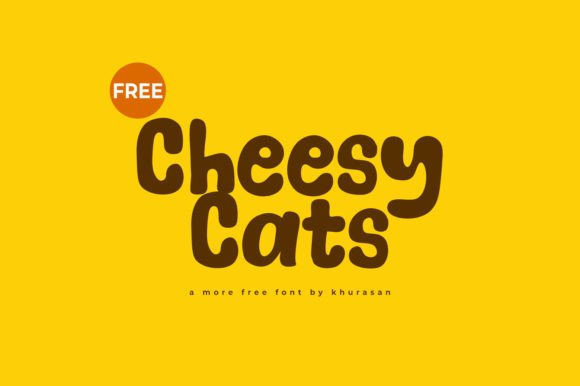
Cheese Cats: A Modern Display Font for Bold Designs
In the crowded landscape of digital and print media, typography often acts as the silent ambassador of a brand or message. It is the first thing an audience notices before they read a single word. For designers seeking a typeface that balances whimsy with professionalism, Cheese Cats emerges as a standout option. This modern display font is not merely a collection of characters; it is a design tool engineered to inject personality into posters, logos, magazines, and book covers. Whether you are a seasoned graphic designer or a business owner looking to refresh your visual identity, understanding how to leverage Cheese Cats can significantly elevate your creative output.
The Character and Appeal of Cheese Cats
Cheese Cats is defined by its playful yet polished aesthetic. Unlike traditional serif fonts that convey history or stark sans-serifs that scream minimalism, this display font occupies a unique middle ground. Its rounded edges and friendly curves evoke a sense of approachability, making it instantly likable. The "cute" factor mentioned in its description is intentional; it taps into a psychological response where softer shapes are perceived as more trustworthy and engaging.
However, do not mistake its charm for a lack of versatility. The font is constructed with strong structural integrity, ensuring legibility even at larger sizes typical of banners and headlines. Its modern styling avoids the dated look of older cartoonish fonts, allowing it to fit seamlessly into contemporary design trends. When you select Cheese Cats, you are choosing a typeface that communicates warmth without sacrificing clarity. It is a font that invites the viewer in, promising content that is both enjoyable and accessible.
Key Design Strengths
- High Impact Visibility: Designed specifically for display purposes, Cheese Cats commands attention on large formats like billboards and event posters.
- Emotional Resonance: The soft geometry triggers positive emotional responses, ideal for brands targeting families, children, or lifestyle markets.
- Modern Flexibility: While cute, the font maintains enough geometric precision to pair well with serious body text, creating a balanced hierarchy.
- Broad Compatibility: It adapts easily to various mediums, from high-resolution print to responsive web headers.
Practical Applications Across Industries
The true value of a font lies in its application. Cheese Cats is remarkably adaptable, serving diverse needs across personal, professional, and commercial sectors. Its ability to match an incredibly large set of projects makes it a staple asset for any creative toolkit.
Branding and Logo Design
For entrepreneurs and small business owners, a logo is the cornerstone of identity. Cheese Cats excels here by offering a distinctive look that helps businesses stand out in saturated markets. Imagine a boutique bakery, a pet grooming salon, or a children's educational center. In these contexts, a sharp, corporate font might feel too cold. Conversely, Cheese Cats conveys care, fun, and quality. By integrating this font into a logo, brands can instantly signal their niche and tone to potential customers.
Publishing and Editorial Layouts
Magazines and book covers require typography that stops the scroll or catches the eye on a shelf. Cheese Cats is perfect for headlines that need to pop. Editors and publishers can use it to highlight feature stories, chapter titles, or special sections within a layout. The font's distinct character ensures that the title remains memorable, encouraging readers to engage with the content beneath it. For self-published authors, particularly those in genres like young adult fiction or illustrated guides, this font can be the deciding factor in a cover's appeal.
Digital Marketing and Social Media
In the fast-paced world of social media, visual assets must communicate quickly. Marketers and bloggers often struggle to create graphics that feel authentic rather than templated. Using Cheese Cats in Instagram stories, YouTube thumbnails, or email headers adds a layer of human touch that generic templates lack. It breaks the monotony of standard system fonts and creates a cohesive visual language that followers begin to recognize and associate with your brand voice.
Enhancing User Experience and Engagement
Beyond aesthetics, the choice of typography impacts user experience (UX) and engagement metrics. When a design feels inviting, users are more likely to linger, read, and interact. Cheese Cats facilitates this by reducing visual friction. Its rounded forms are easier for the eye to track in short bursts, which is crucial for banners and advertisements where seconds count.
Furthermore, the font supports productivity for creators. Because it is designed to work well in isolation or as part of a larger composition, it reduces the time spent tweaking kerning or adjusting weights to achieve a desired effect. This efficiency allows professionals to focus on strategy and content rather than getting bogged down in typographic minutiae. The result is a faster turnaround time for projects without compromising on quality.
Strategic Pairing Recommendations
To maximize the impact of Cheese Cats, consider how it interacts with other elements. While it shines as a display font, it should generally be paired with a clean, neutral sans-serif for body copy. This contrast creates a clear visual hierarchy, guiding the reader from the headline to the details. Avoid pairing it with overly ornate scripts or heavy slab serifs, as this can create visual clutter and dilute its inherent charm.
Considerations for Implementation
While Cheese Cats offers immense creative freedom, it requires thoughtful implementation to maintain professionalism. As with any display font, readability can suffer if used in small point sizes or long paragraphs. It is best reserved for headlines, pull quotes, and short phrases. Additionally, while the font is versatile, context matters. Ensure that the playful nature of the typeface aligns with the specific message you are conveying. A funeral home or a law firm specializing in litigation might find the font inappropriate, whereas a startup focusing on wellness or education would benefit greatly from its energy.
Evaluating a font also involves considering technical requirements. Ensure that the version you acquire supports the necessary character sets and encoding for your project, especially if you plan to use it for international audiences or complex web layouts. Licensing is another critical factor; verify that the license covers your intended use, whether it is for personal projects, commercial products, or web embedding.
Final Thoughts on Creative Potential
Cheese Cats represents more than just a trend; it is a practical solution for designers who need to communicate warmth and modernity simultaneously. By adding this font to your creative ideas, you unlock the ability to make designs that truly stand out in a sea of sameness. Whether you are crafting a logo for a new venture, designing a magazine spread, or creating a banner for a community event, this typeface offers the perfect blend of cuteness and capability.
The right typography can transform a good idea into a great one. With Cheese Cats, you have a tool that not only looks amazing but also serves a functional purpose in connecting with your audience. Embrace its unique qualities, experiment with its applications, and watch as your projects gain the attention and engagement they deserve.